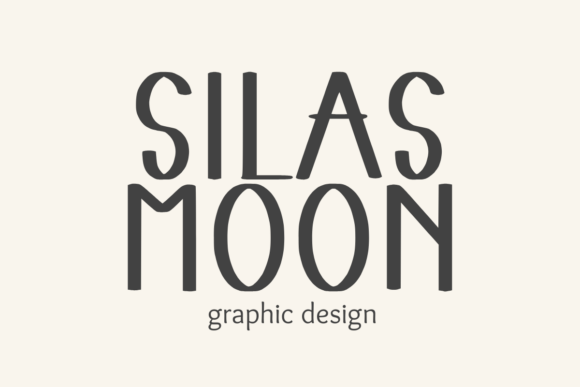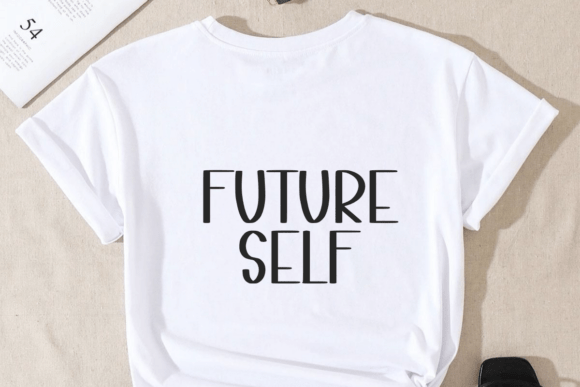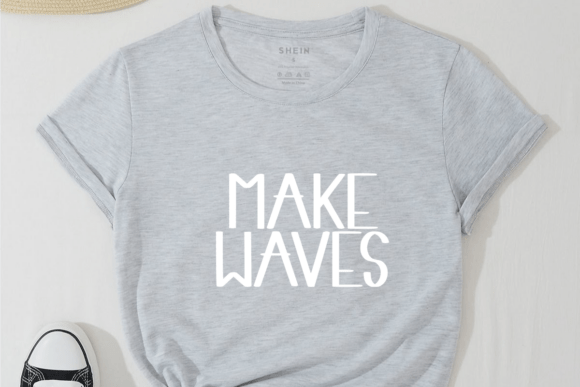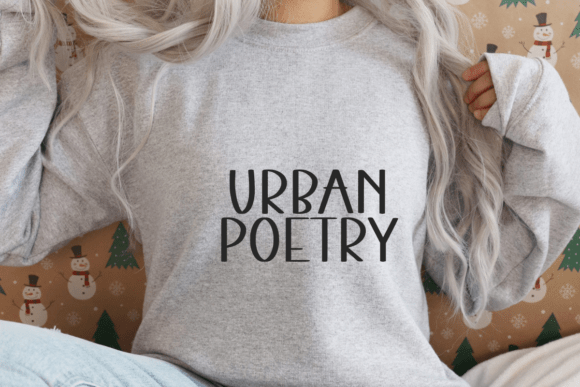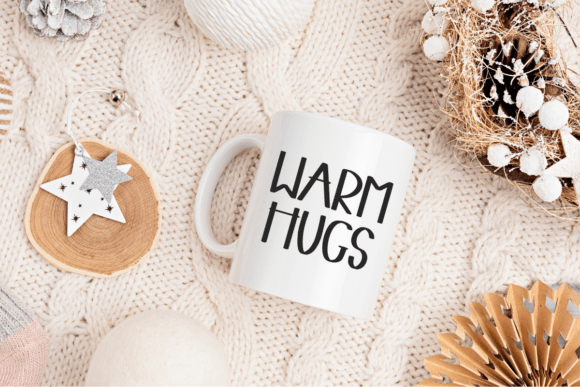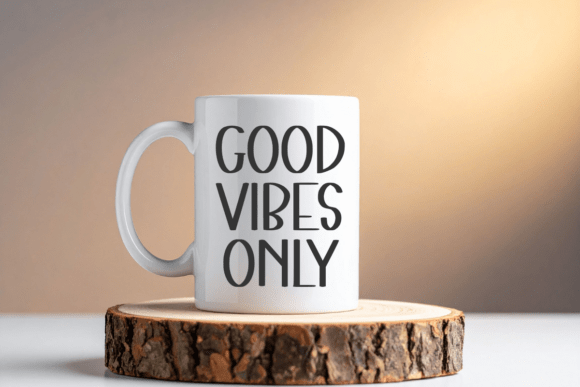
Introduction to Mozarela Font
Have you ever found yourself in a creative zone, surrounded by paper, glue, and colorful markers, and suddenly a font catches your eye, sparking an entire project? That’s exactly what happened to many designers when they discovered the Mozarela Font. This adorable sans serif handwriting font has captured the hearts of crafty moms and designers alike with its soft, friendly, and natural look.
What makes Mozarela Font so valuable is its ability to bring a warm, handcrafted feeling to any project. Whether you’re working on a craft project, planner, or sticker design, this font is the perfect addition. Its simple strokes and smooth curves make it easy to cut using Cricut and Silhouette, making it a high-quality design resource for any creative project.
Key Features of Mozarela Font
- High-quality design resource ideal for creative projects, offering a unique and elegant aesthetic.
- Available in a transparent background option, allowing for seamless integration into various design elements.
- Includes a range of glyphs, including Latin and Cyrillic characters, making it suitable for multilingual creative projects.
Honest Review: Mozarela Font
As a designer, I’m always on the lookout for high-quality fonts that can elevate my creative projects. I recently stumbled upon Mozarela Font, and I’m excited to share my honest review.
Here’s what I like about Mozarela Font:
- ✨ Unique and playful design that adds a touch of personality to any project.
- ✨ High-quality typography that’s perfect for creative projects, from posters to social media graphics.
- ✨ Transparent background, making it easy to use on any design resource.
- ⚠️ Limited font sizes and styles, which may not be suitable for more complex design projects.
- ⚠️ Some users may find the font a bit too playful for more professional or formal projects.
Overall, I’m impressed with Mozarela Font. While it may not be the most versatile font out there, it’s perfect for creative projects where you want to add a touch of personality and whimsy. I’d definitely recommend it to designers looking for a high-quality, free font resource.
Mozarela Font
The Mozarela Font is a high-quality design resource ideal for various creative projects. It features a unique and elegant style, making it a perfect addition to any design.
Using the Mozarela Font
The Mozarela Font features a transparent background, making it easy to use in various design projects. You can use it for headings, titles, or body text, and it works well with a variety of colors and backgrounds.
For the most out of the Mozarela Font, use it in designs that require a touch of elegance and sophistication. Some common use cases include:
- Product labels and packaging